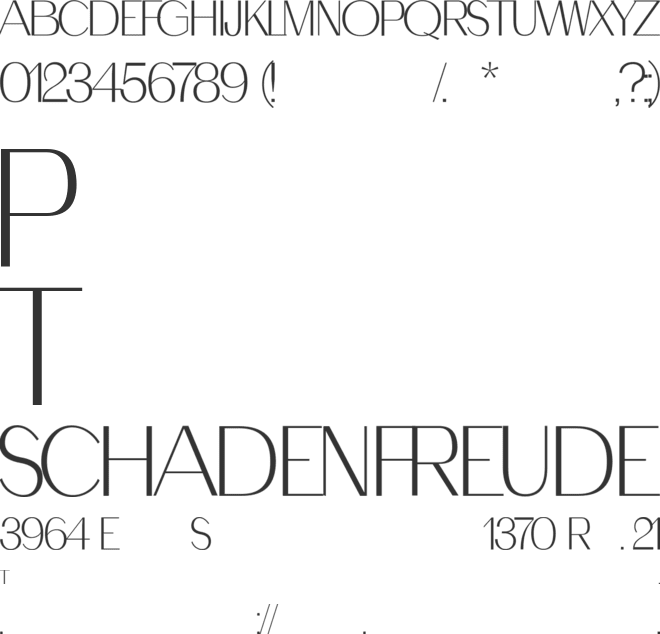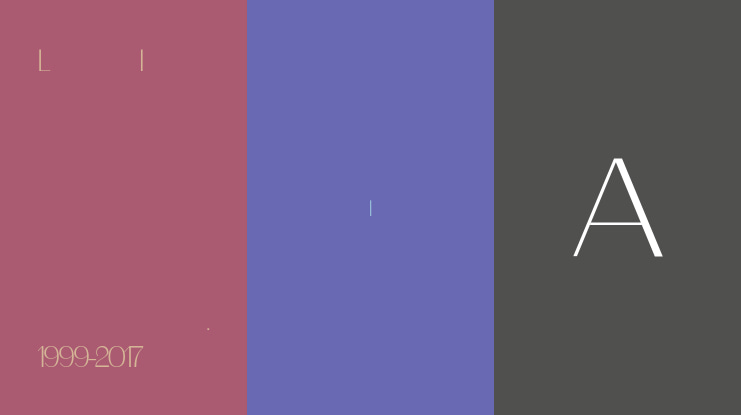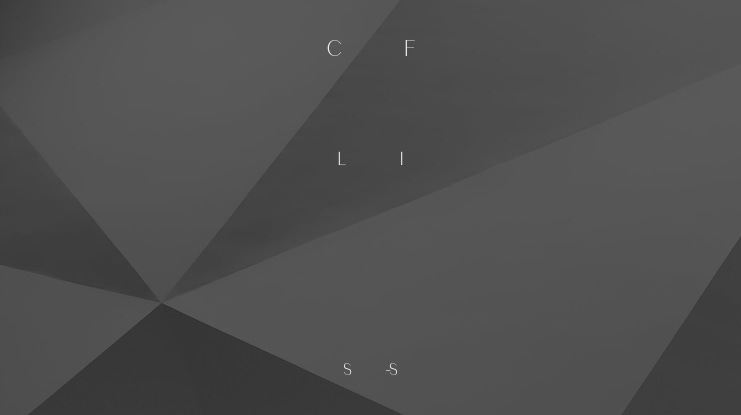
π¨ Font Name: Bupnle by Minimalist Art Studio
π¨ Font Description: Bupnle is a delicate sans serif with minimalist elegance, ideal for branding, lifestyle, and soft editorial design.
β Complete Latin set + multilingual diacritics
β Alternates, stylistic sets & ligatures
β Numbers, small caps, and extended punctuation
β Bonus italics and family styles